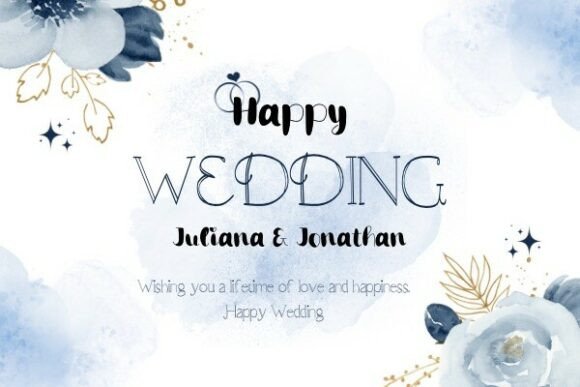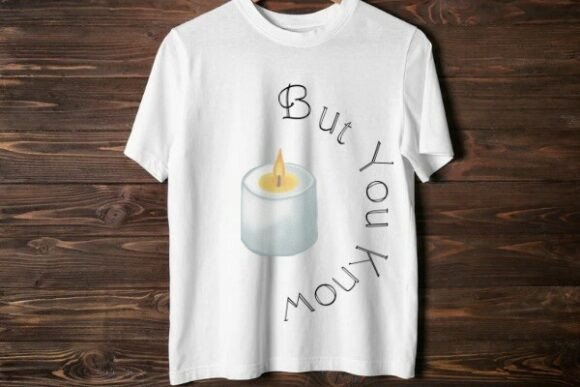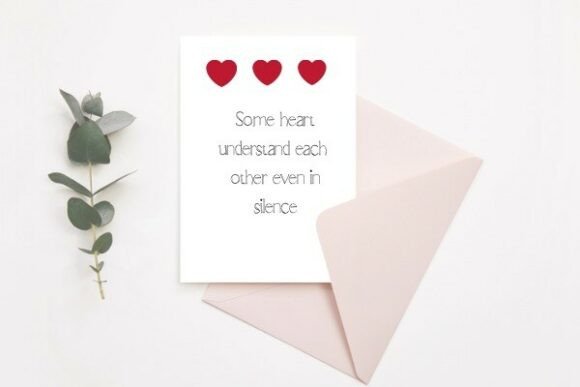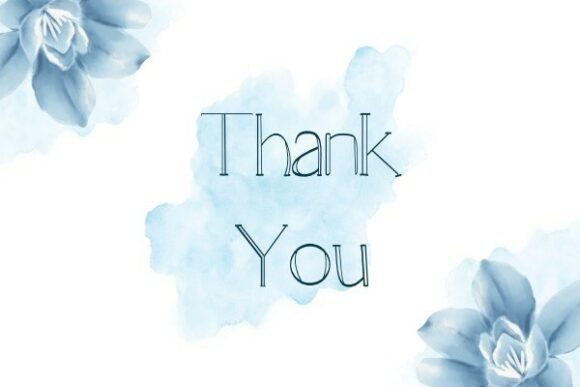
Introduction to Kit Font
Do you remember the moment when a single design element sparked an entire creative project? For many designers, it’s that one unique font that sets the tone for an entire visual identity. As you browse through your design library, the search for the perfect font can be overwhelming. But what if you stumbled upon a font that not only elevates your design but also tells a story? Meet the Kit Font – a charming, handwritten font that adds a touch of personality to any creative project.
Whether you’re working on a t-shirt design, a greeting card, or an invitation, the Kit Font is the perfect tool to breathe life into your object. With its high-quality design and versatile appeal, this font is a valuable resource for designers looking to take their work to the next level. Plus, with a free download available, you can start experimenting with the Kit Font on your next creative project today.
Key Features of Kit Font
- High-quality design resource featuring a unique, stylish font perfect for creative projects.
- Kit Font is a versatile design resource, ideal for use in a variety of creative projects, from logos and branding to digital art and graphics.
Honest Review: Kit Font
As a designer, I’m always on the lookout for high-quality design resources to elevate my creative projects. Recently, I stumbled upon Kit Font, a free download that has left me impressed.
What works well is the font’s versatility. It’s perfect for a wide range of creative projects, from branding and marketing materials to digital products and websites. The font’s sleek and modern design makes it an excellent choice for any project that requires a touch of sophistication.
- ✨ High-quality design: Kit Font is well-designed and looks great on both light and dark backgrounds.
However, there are a few limitations to consider. One major issue is the lack of a transparent background option. This can make it difficult to use the font on complex backgrounds or with images that have transparent elements.
Overall, I’m impressed with Kit Font. While it’s not perfect, it’s a great resource for designers looking for a high-quality, modern font that’s easy to use. With a few tweaks to address the limitations, I’d highly recommend Kit Font to anyone looking for a reliable design resource.
Kit Font
Kit Font is a versatile and high-quality design resource ideal for any creative project. This free download offers a transparent background, making it easy to incorporate into various designs.
Common Use Cases for Kit Font
Kit Font is perfect for creating invitations, posters, and other promotional materials. Its high-quality design and transparent background make it easy to use in a variety of creative projects.